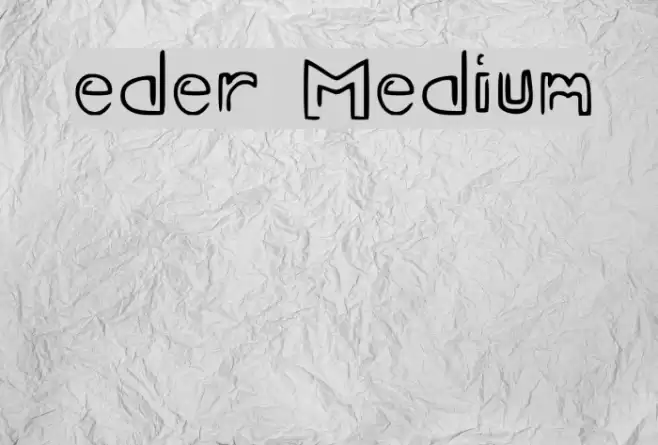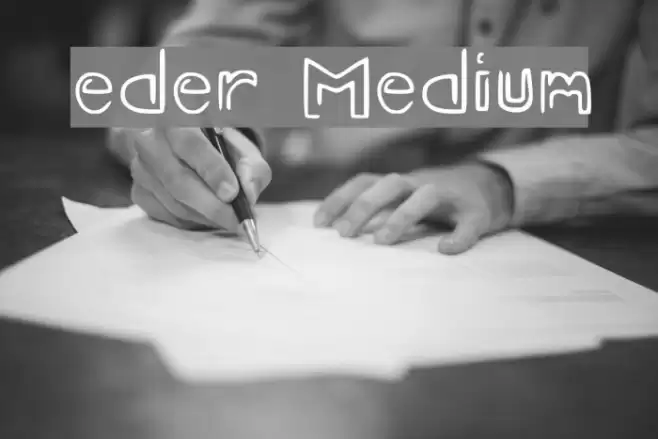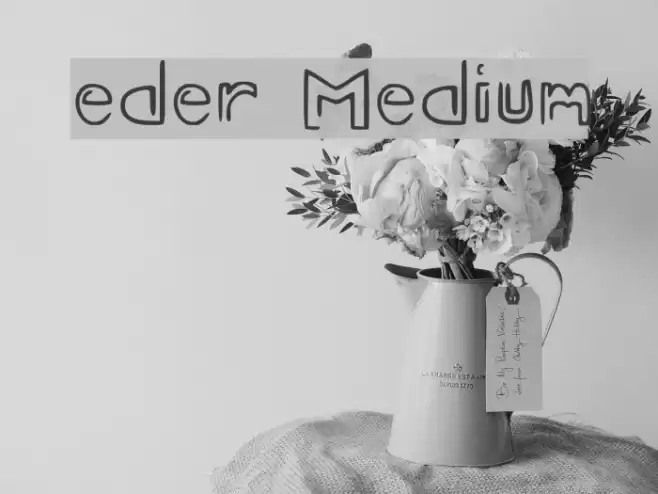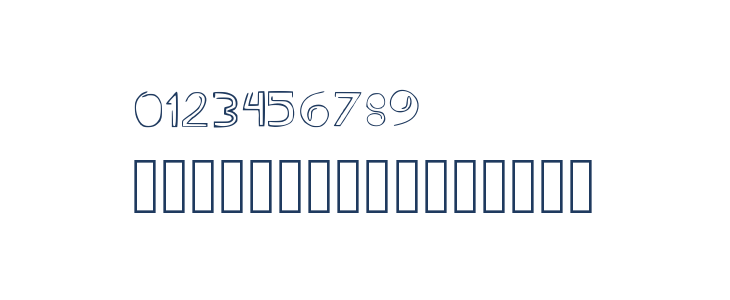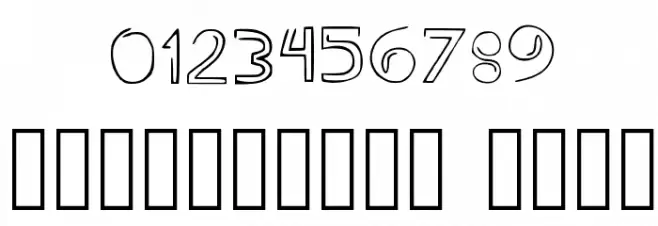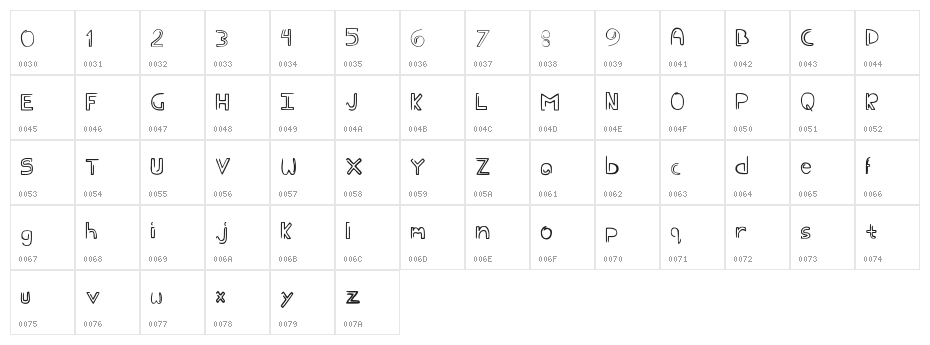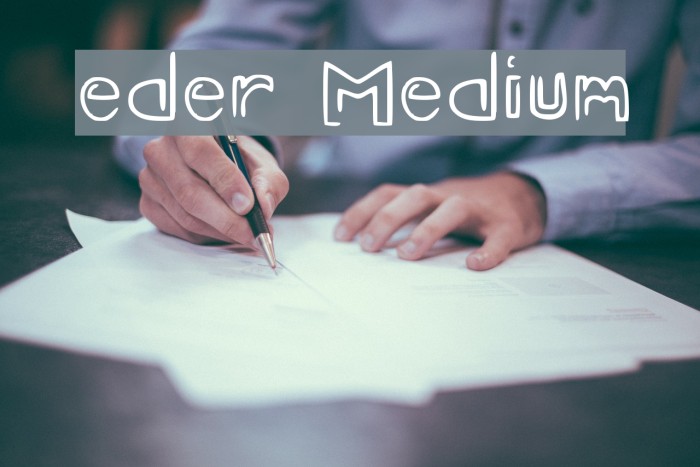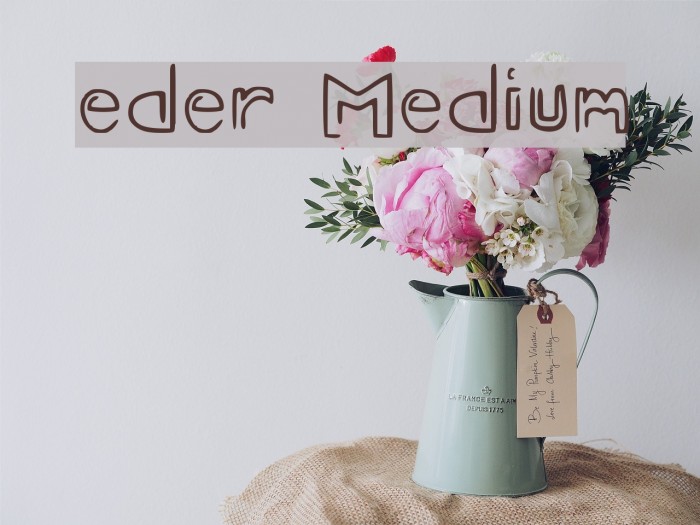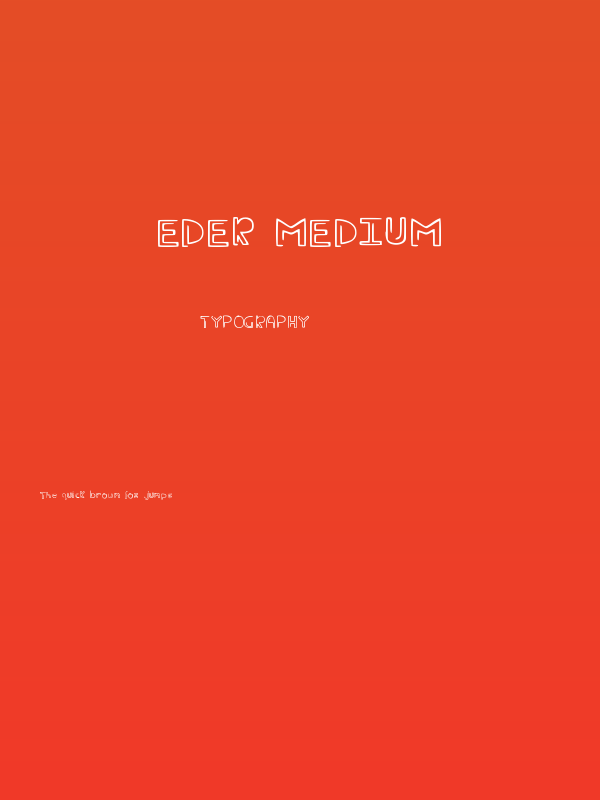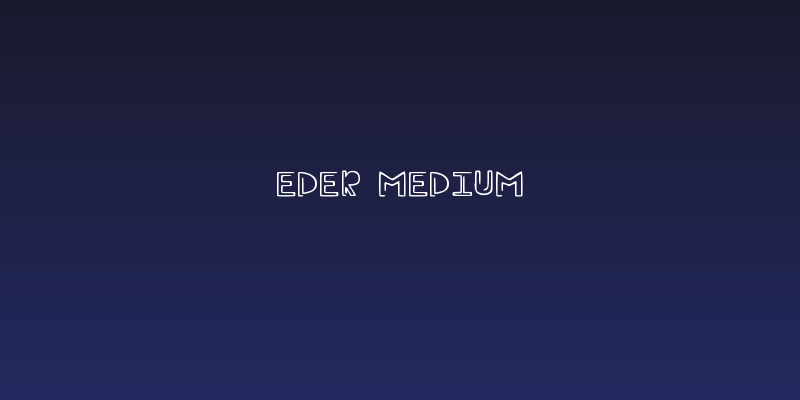
eder Medium Font
eder Medium Description
This font features a unique and playful design with a modern twist. The characters are outlined, giving them a hollow appearance that adds a sense of lightness and creativity. The uppercase letters have a geometric and structured form, while the lowercase letters maintain a more casual and rounded style. The numerals are consistent with the overall aesthetic, providing a cohesive look across all characters. Special characters are also included, maintaining the same outlined style. This font is perfect for projects that require a touch of whimsy and modernity.
A playful, outlined font with a modern and creative design from Cartoon fonts.
- Proposed Projects: Ideal for children's books, creative posters, playful branding, and modern invitations.